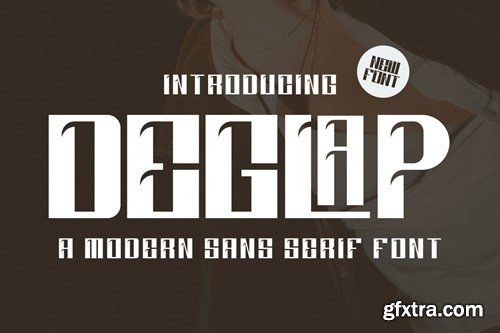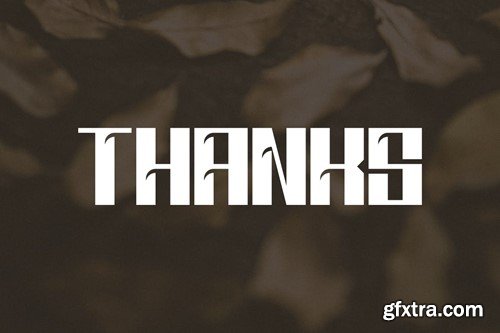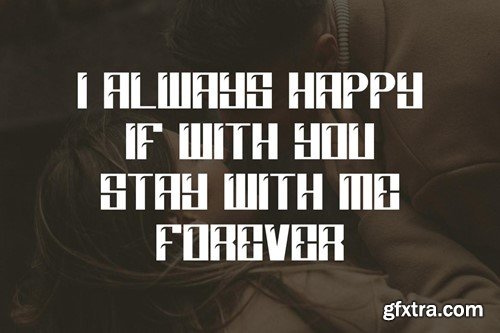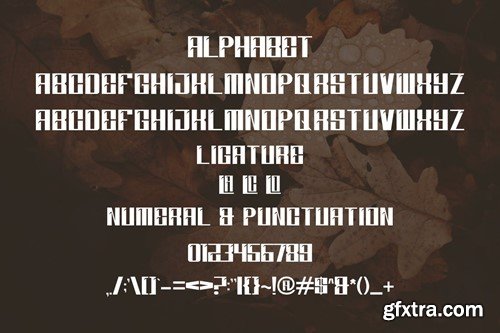
Deglap - a Modern Sans Serif Font
Introducing Deglap Modern Sans Serif Font. Deglap is a modern and simple font, best used as a display for headings, logos, branding, magazines, product packaging and invitations. Deglap come with clean lines and smooth curves give any project an extra touch of class. What you get: Thank you.